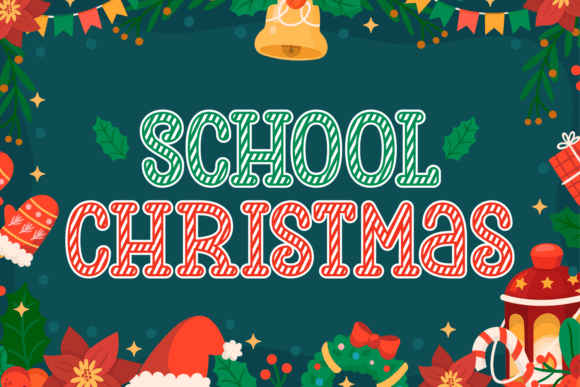
Introducing School Christmas Font, a captivating and enchanting decorative font that will add a touch of magic to your designs. Created by the talented Wankriss, this font is specifically designed to bring joy and festivity to your projects, making it the perfect addition to your fonts' collection.
With its unique and intricate design, School Christmas Font is perfect for creating stunning quotes, greeting cards, invitations, and so much more. Its charming and playful appearance will instantly grab attention and evoke a sense of wonder in your audience.
Celebrate the holiday season in style with School Christmas Font. Its elegant and whimsical letterforms embody the spirit of Christmas, making it an ideal choice for any festive-themed project. Whether you're designing a Christmas party invitation or creating heartwarming quotes for social media, this font will truly capture the essence of the season.
But School Christmas Font isn't limited to just Christmas-themed designs. Its versatility allows it to be used in a wide range of projects. From adding a touch of elegance to wedding invitations to bringing a touch of nostalgia to vintage designs, this font has the power to transform any creation into a work of art.
Not only does School Christmas Font offer captivating visuals, but it also provides a seamless user experience. Its carefully crafted letterforms ensure legibility and readability, making it easy for your audience to engage with your content.